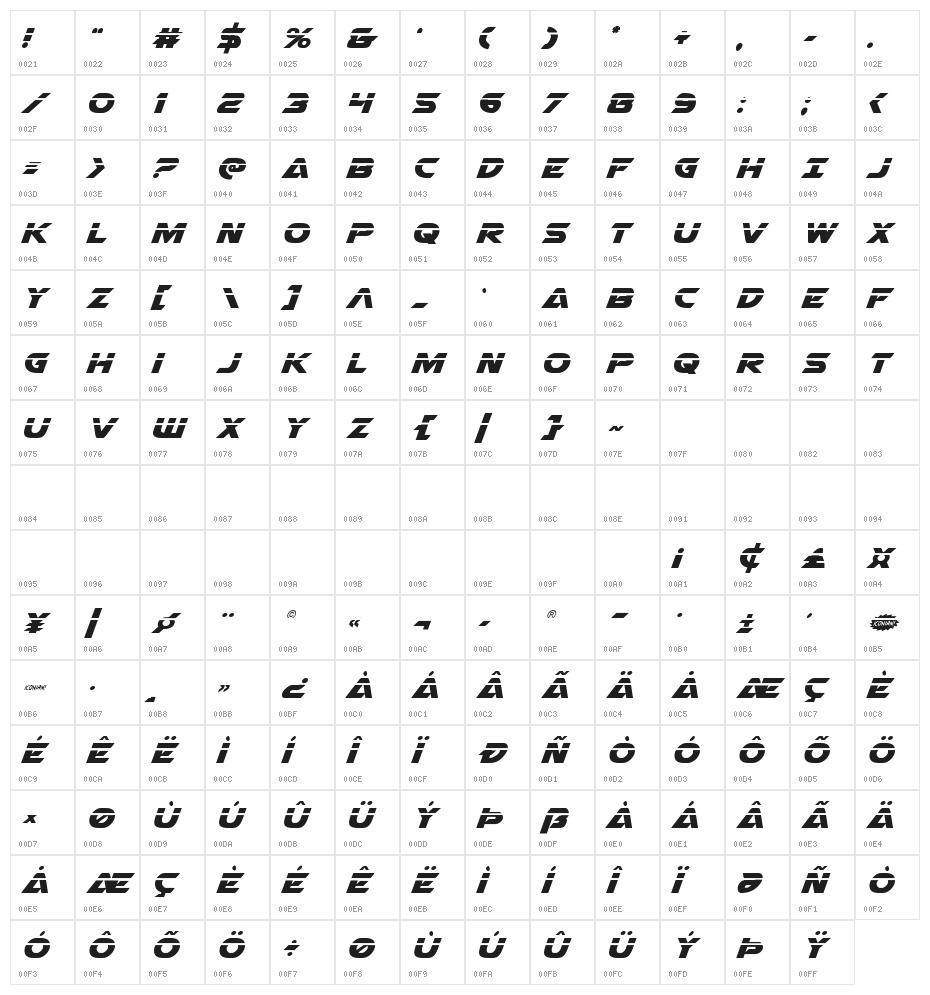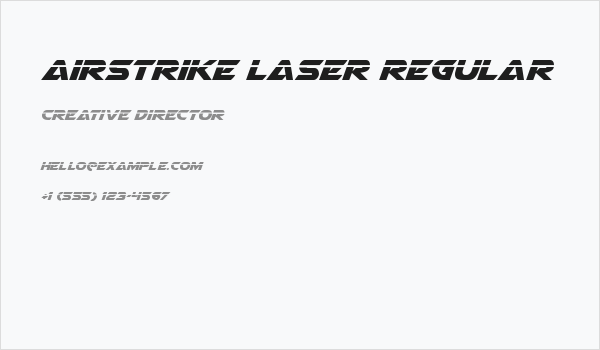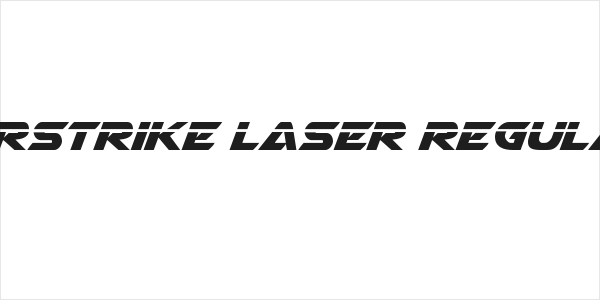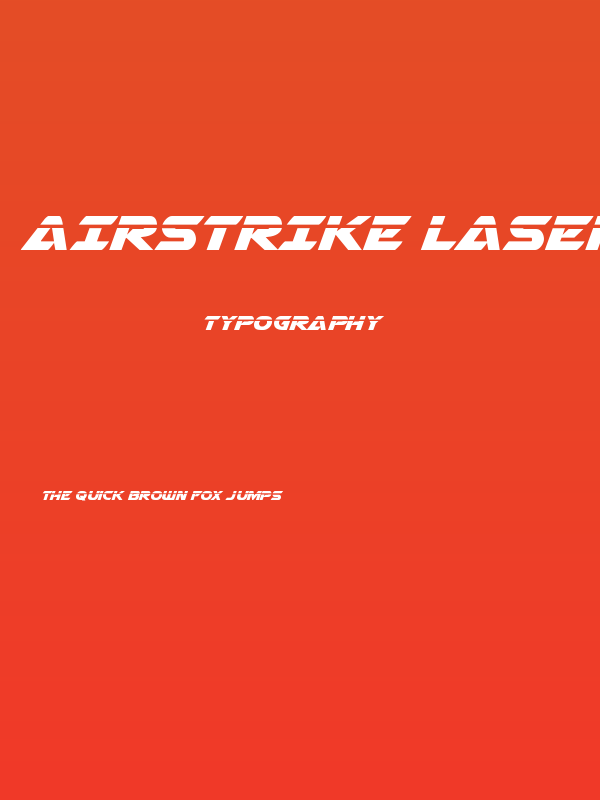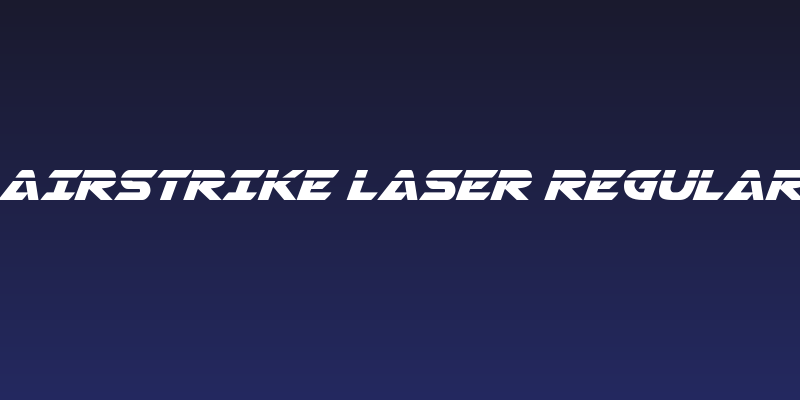
Airstrike Laser Regular Font
Airstrike Laser Regular Description
This font features a bold, futuristic design with sharp, angular edges and a distinct slanted orientation, giving it a dynamic and aggressive appearance. The characters are wide and heavily stylized, with a consistent thickness throughout, creating a uniform and cohesive look. The font's geometric shapes and clean lines make it ideal for projects that require a modern and impactful aesthetic. Its unique style is reminiscent of sci-fi themes and high-tech environments, making it suitable for use in digital media, gaming, and technology branding.
Proposed ProjectsIdeal for video game titles, tech company logos, sci-fi movie posters, and digital media branding.